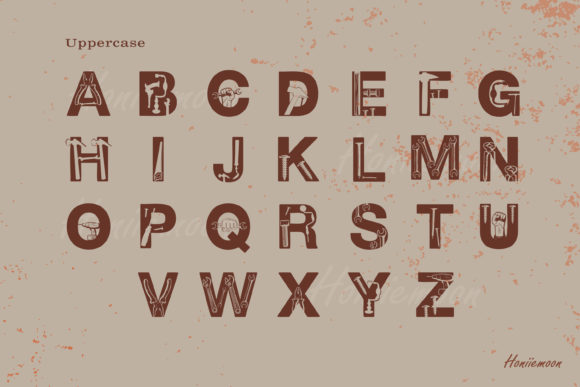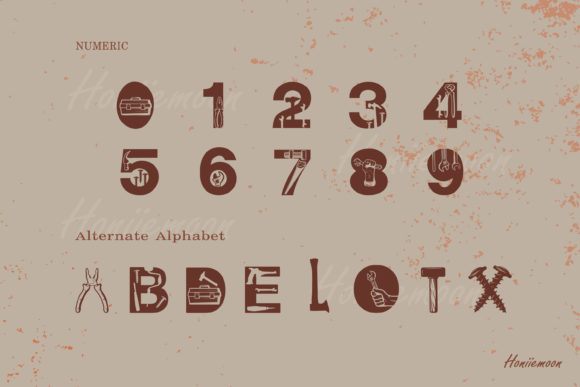
Introduction to Mr Technician Font
Imagine you’re in the middle of a creative project, and you need the perfect font to elevate your design. You’ve tried countless options, but nothing seems to fit the vibe you’re going for. That’s when you stumble upon the Mr Technician Font – a game-changing decorative font that’s about to take your design to the next level.
With its modern and bold aesthetic, the Mr Technician Font is the perfect addition to any design project. Whether you’re working on a logo, a brochure, or a social media graphic, this font is sure to make your design stand out. And the best part? It’s PUA encoded, making it easy to access all the amazing glyphs and ligatures that come with it.
Key Features of Mr Technician Font
- High-quality design resource suitable for creative projects, including logos, branding, and advertisements.
- Designed with a focus on readability and versatility, making it suitable for use in a variety of contexts and applications.
- Unique and modern design aesthetic, making it an ideal choice for designers looking to add a touch of sophistication to their creative projects.
Honest Review: Mr Technician Font
I recently had the opportunity to try out the Mr Technician Font, and I’m excited to share my honest review with you.
- The Mr Technician Font has a unique and modern design that makes it perfect for creative projects and tech-related websites.
- The font is a bit limited in terms of customization options, which might be a drawback for some designers.
- The font is not suitable for large blocks of text, as it can become difficult to read.
Overall, I’m impressed with the Mr Technician Font. Its unique design and high-quality feel make it a great addition to any design resource. While it has some limitations, it’s a great option for designers looking for a free and modern font. I’d definitely recommend it for creative projects and tech-related websites.
Common Use Cases for Mr Technician Font
Mr Technician Font is ideal for creative projects that require a modern and sleek look. Use it in logos, posters, brochures, and other marketing materials to add a touch of professionalism. The font’s transparent background makes it perfect for designing against a busy or colorful background.